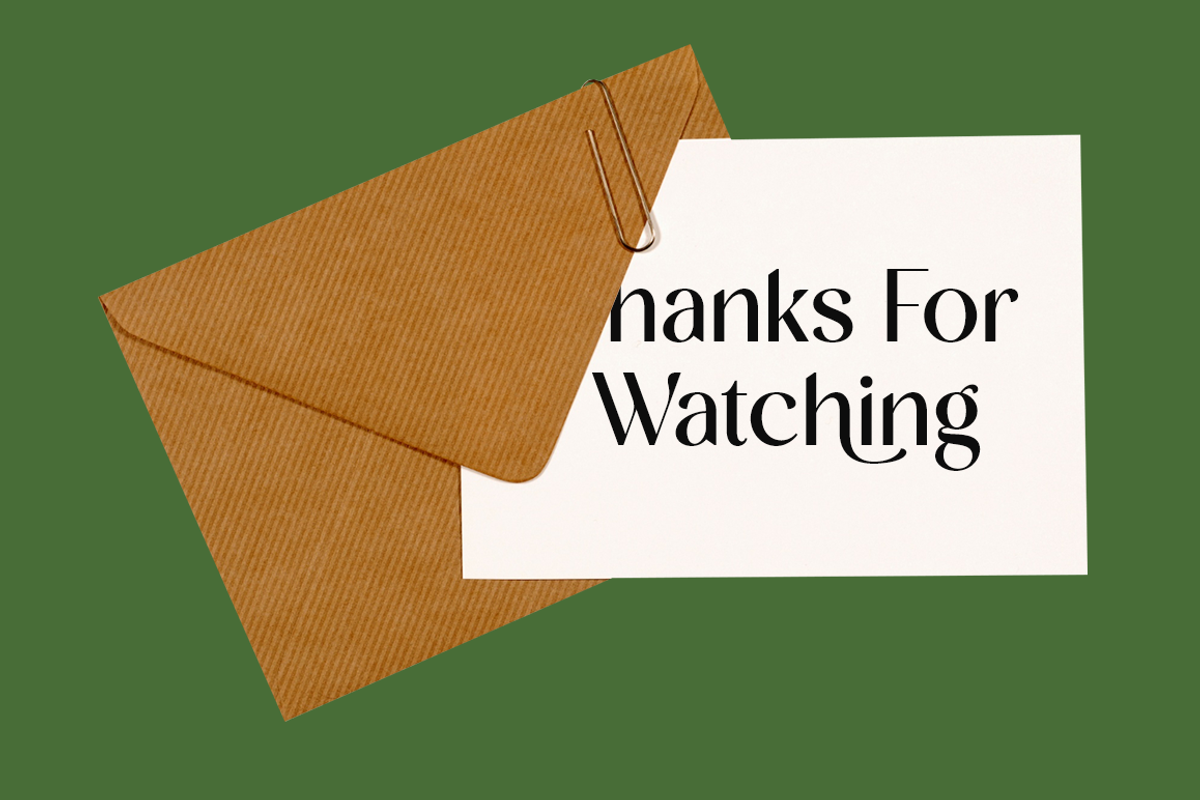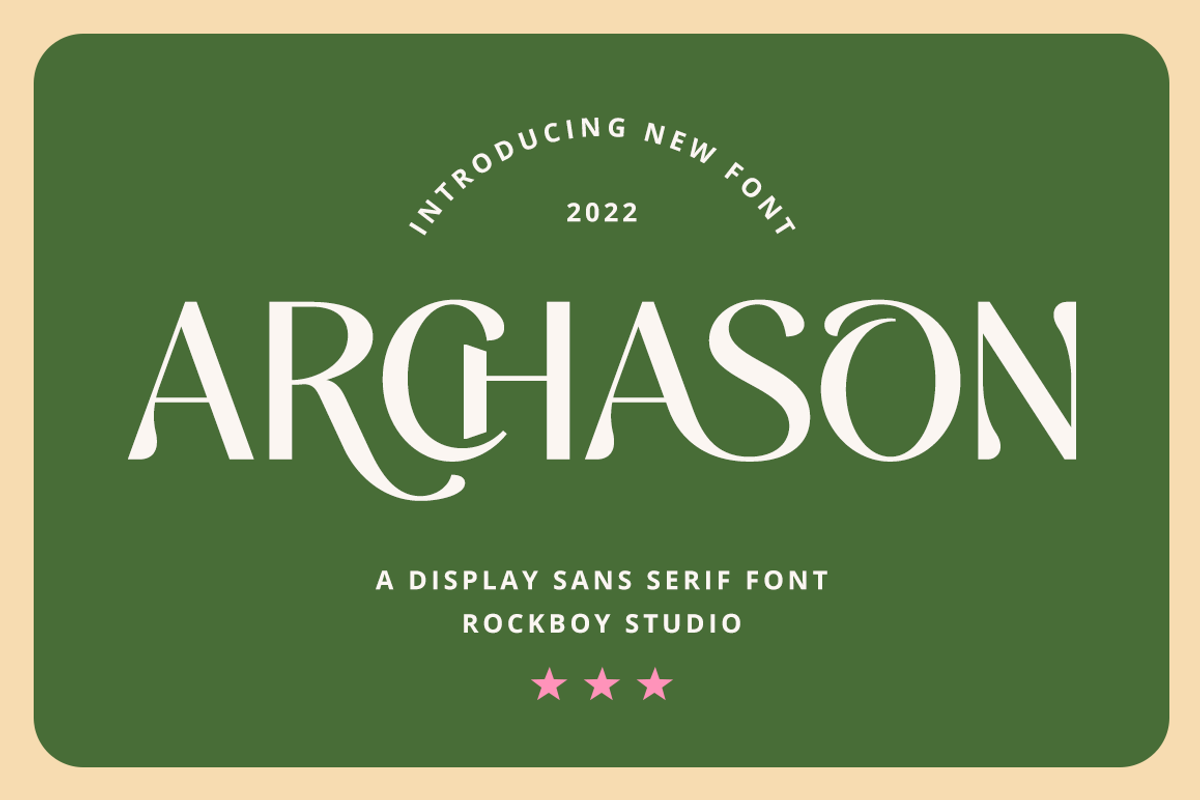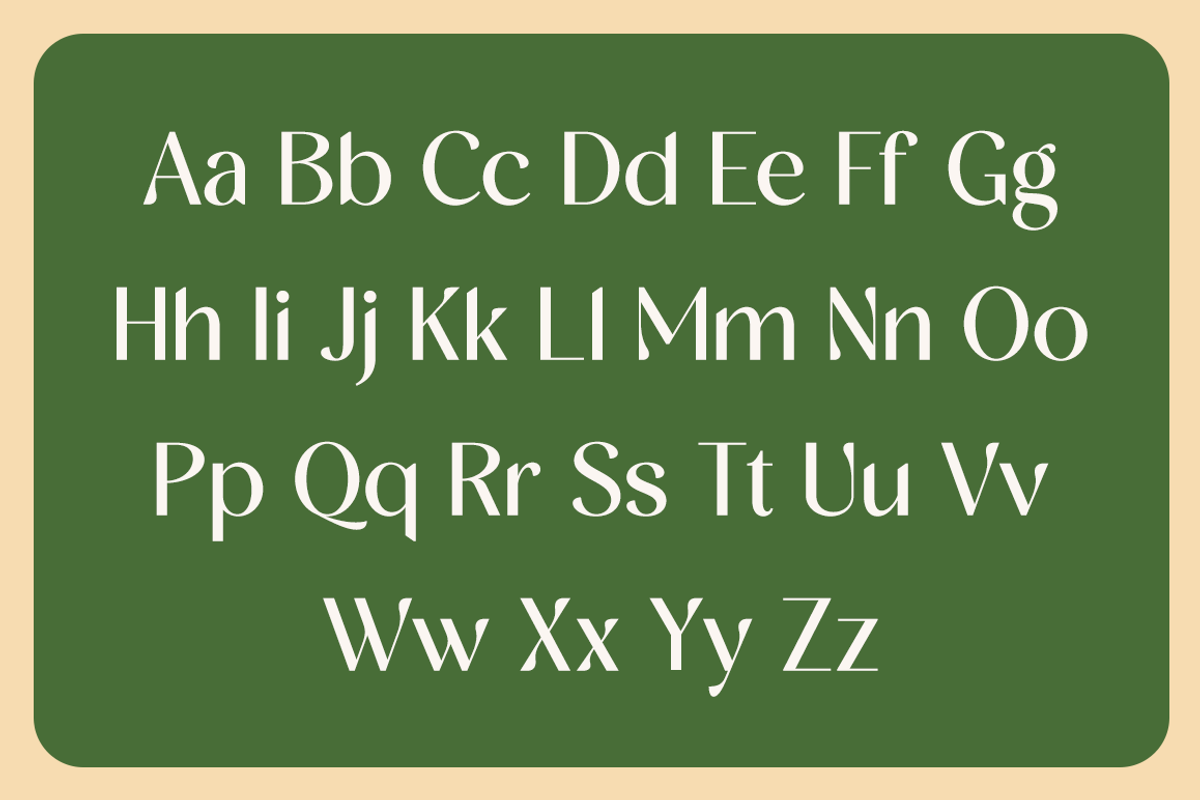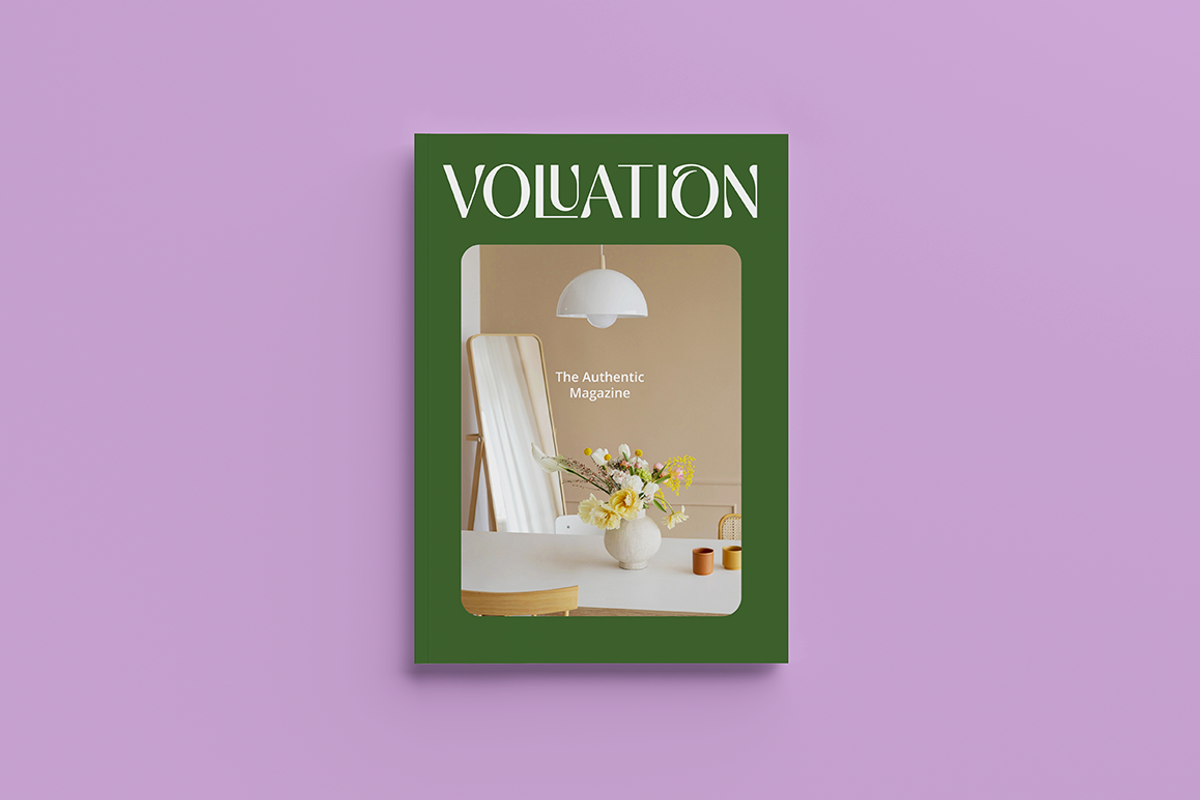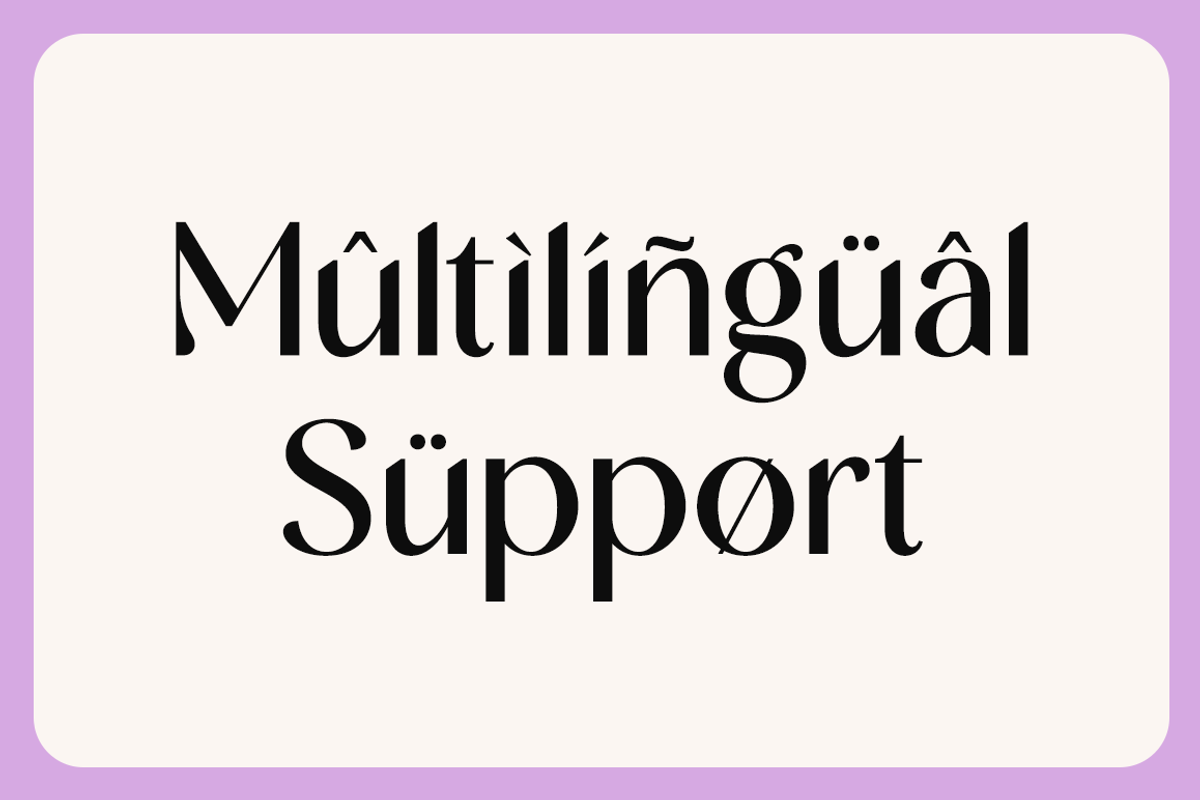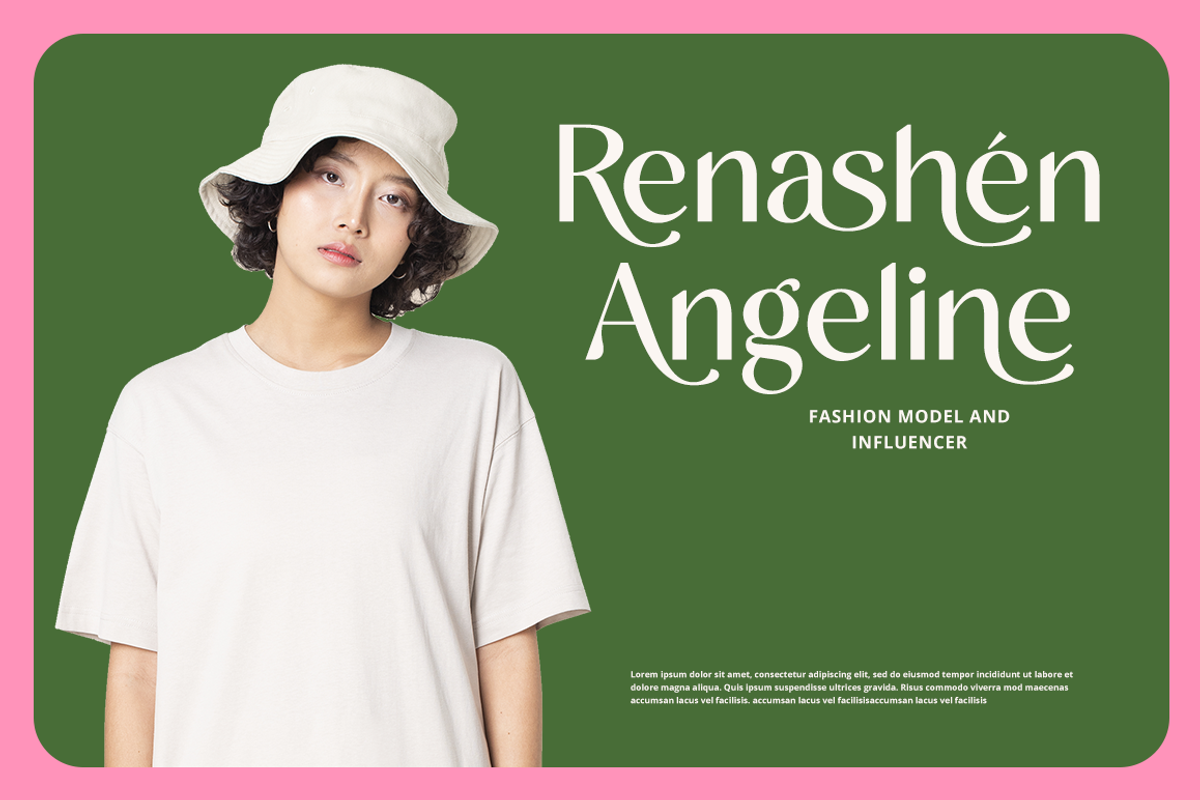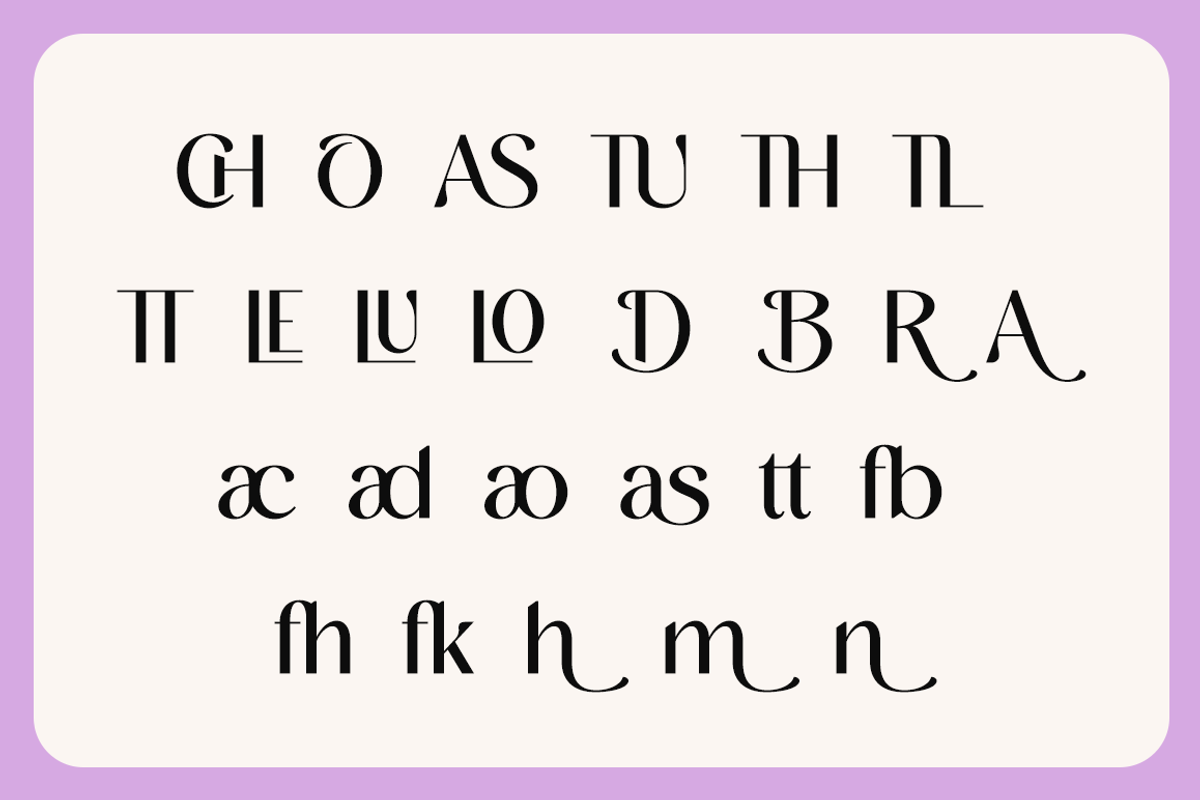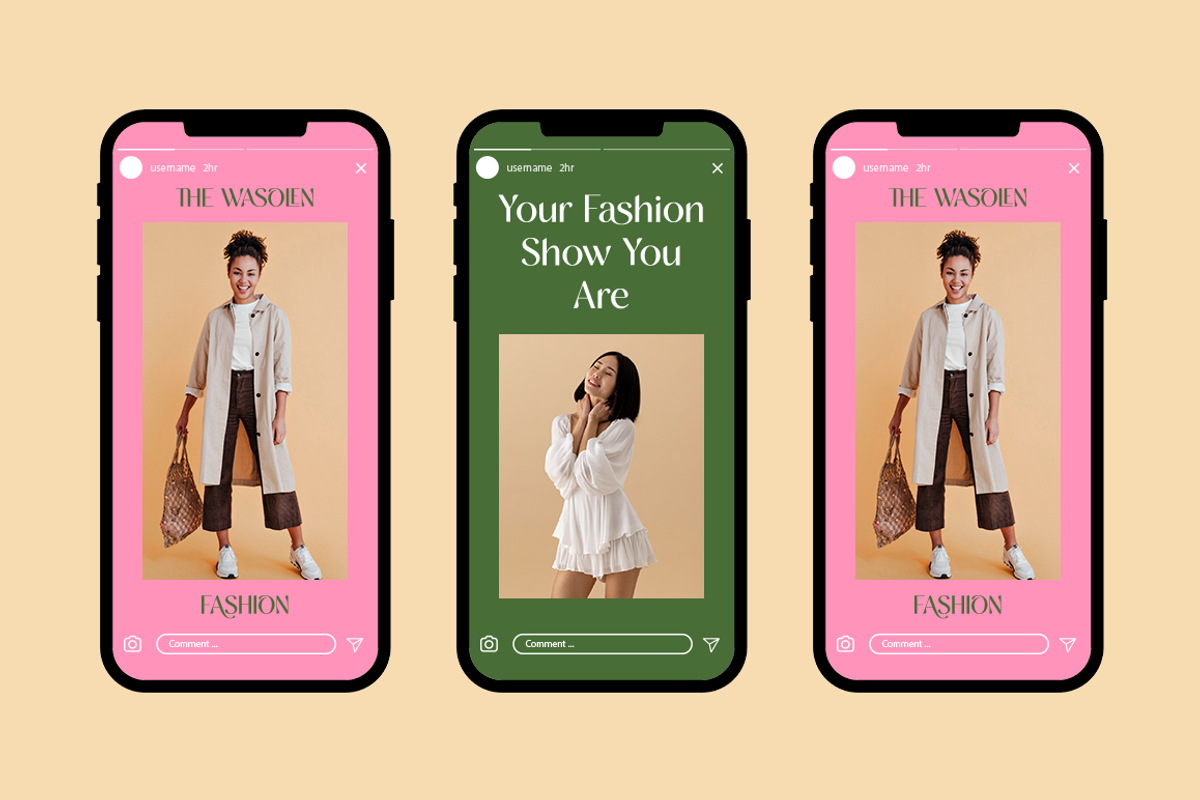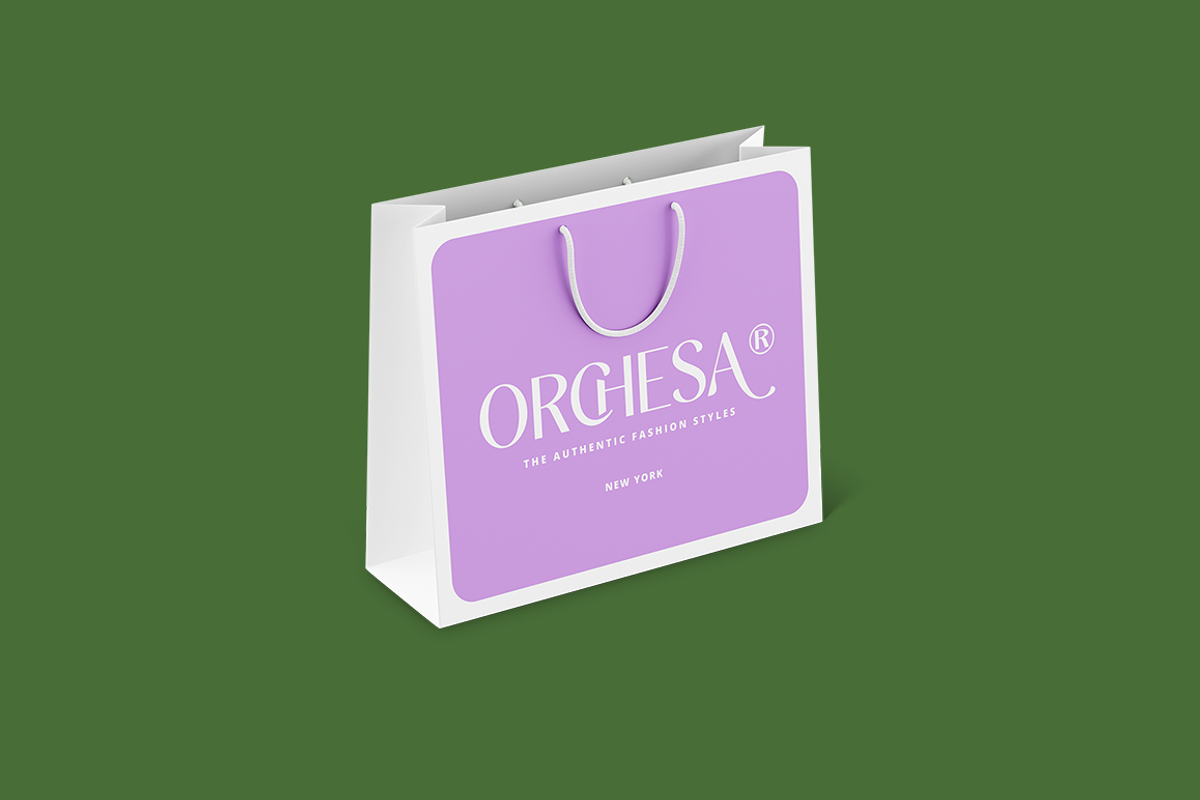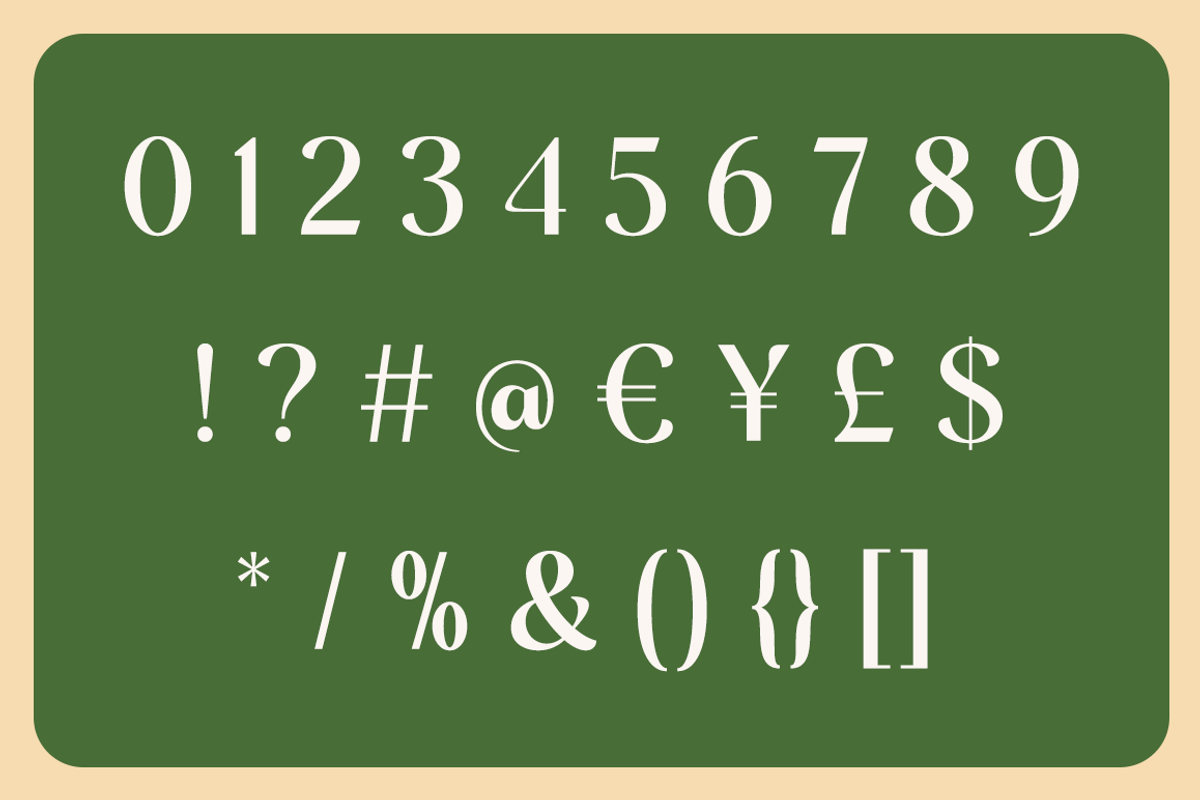
Archason - Modern Display Sans Serif
Archason is an elegant and beautiful sans serif font. It will elevate a wide range of crafting ideas, from cards to branding, labels, and many more. Add it to any of your creative projects, and make them look extraordinary!